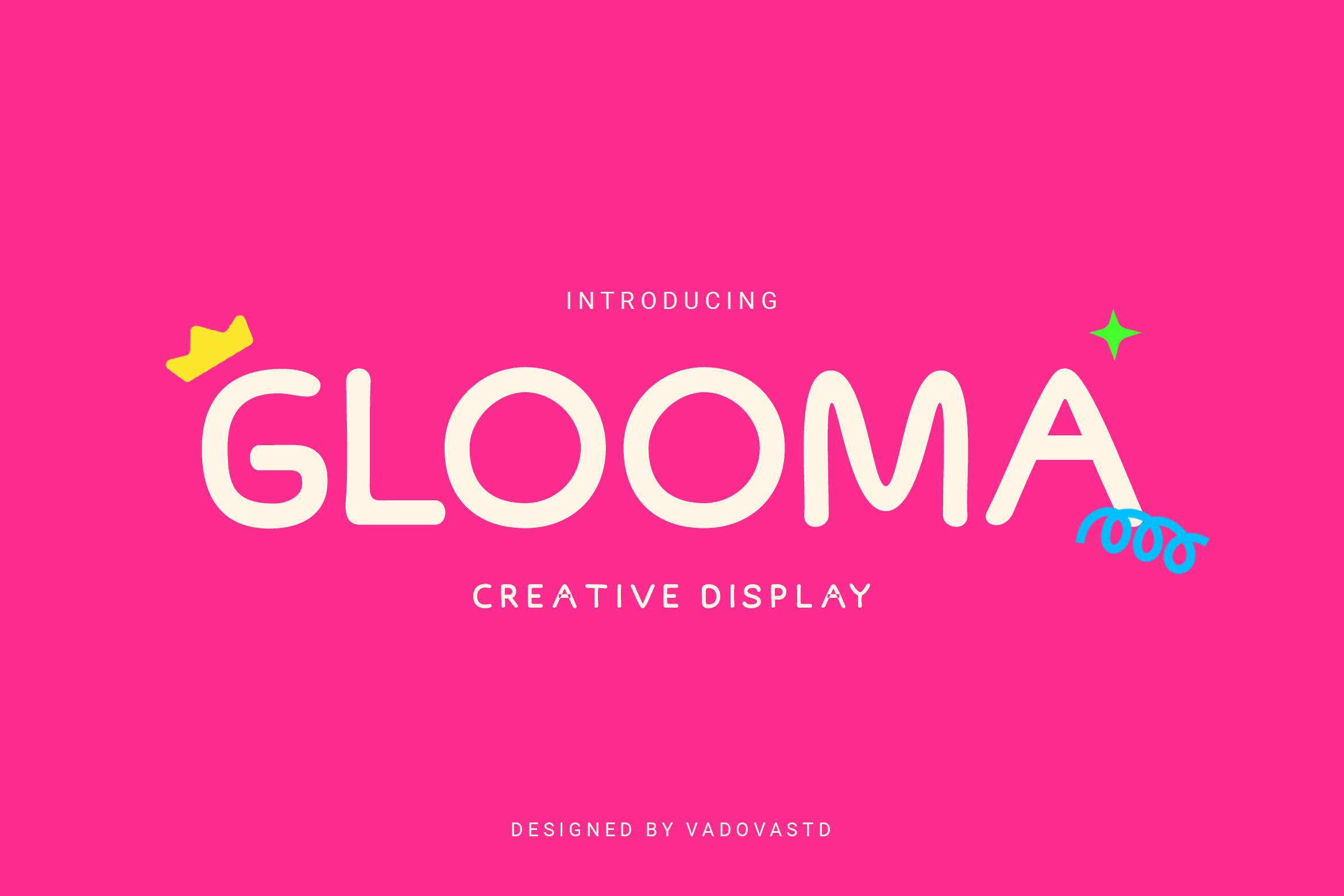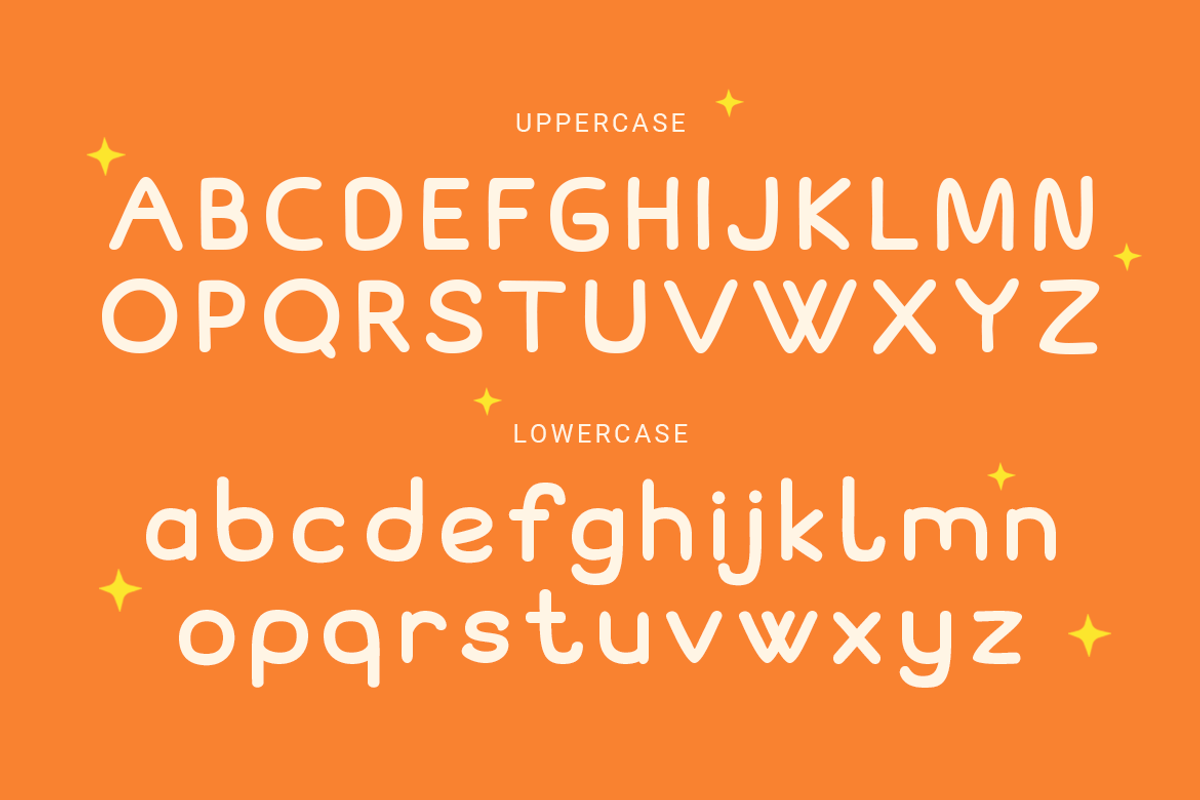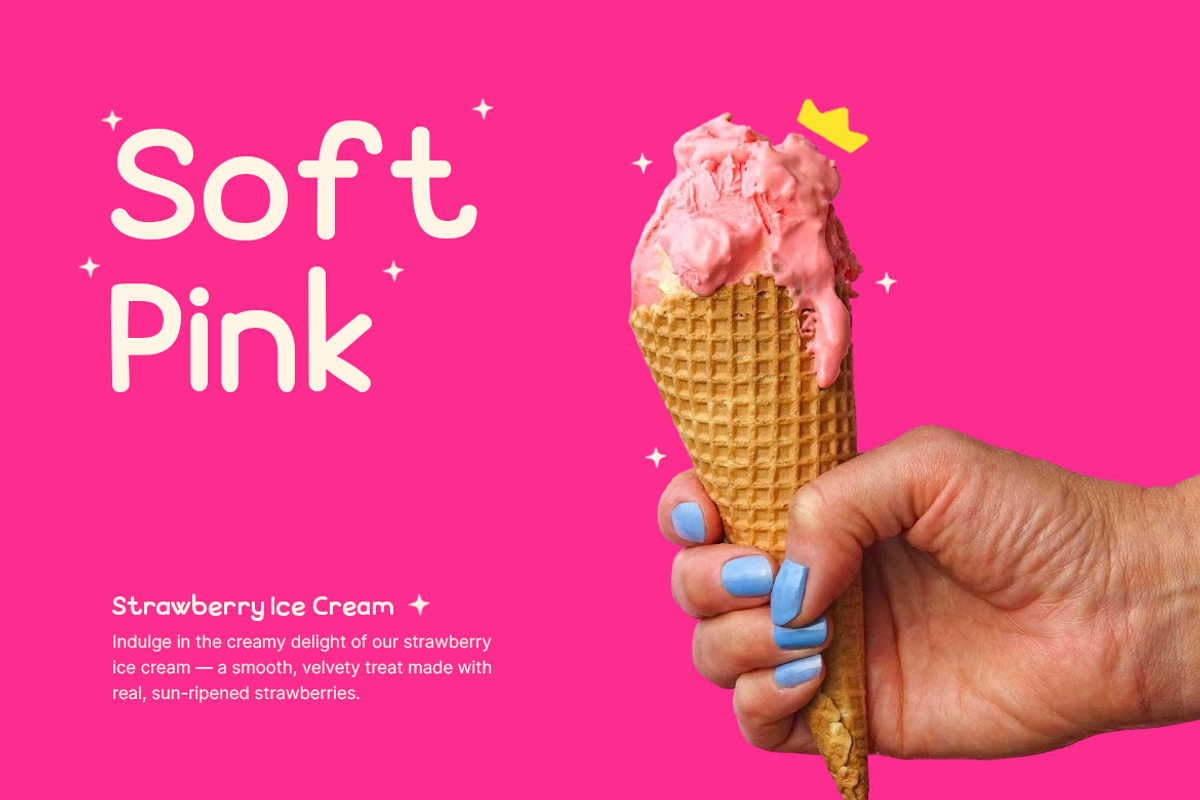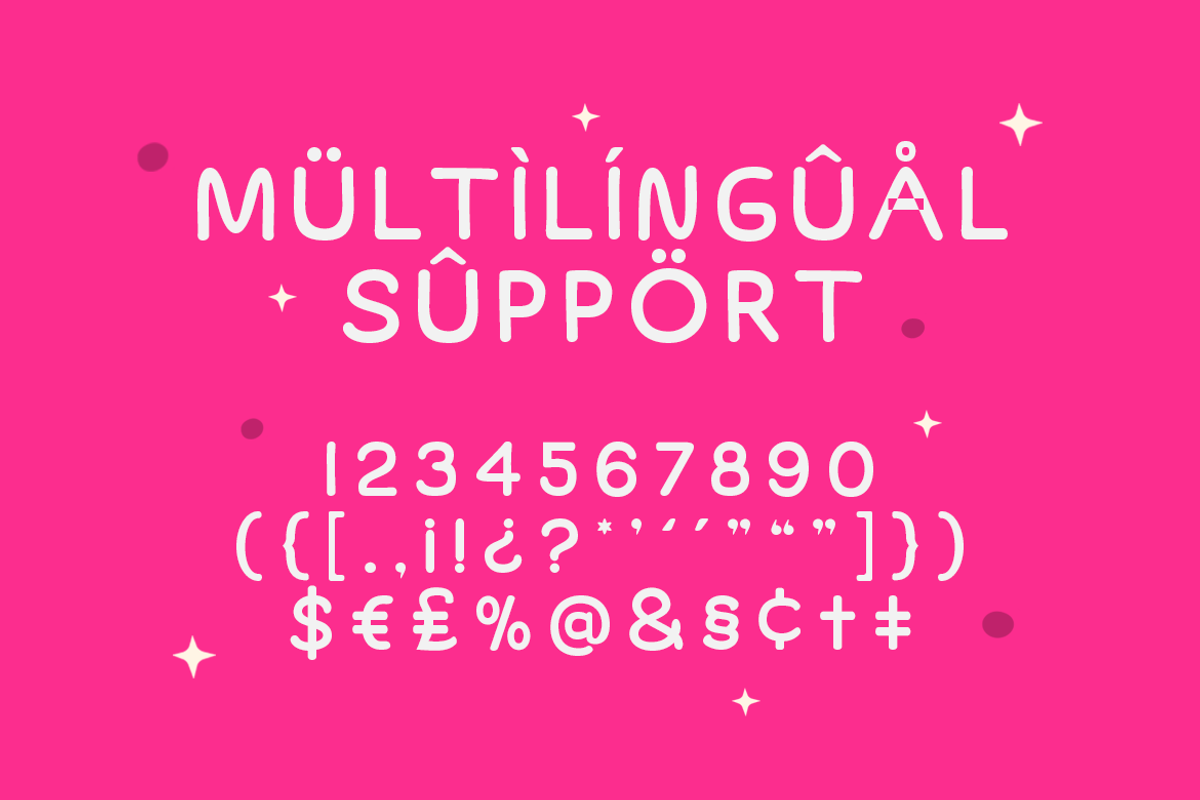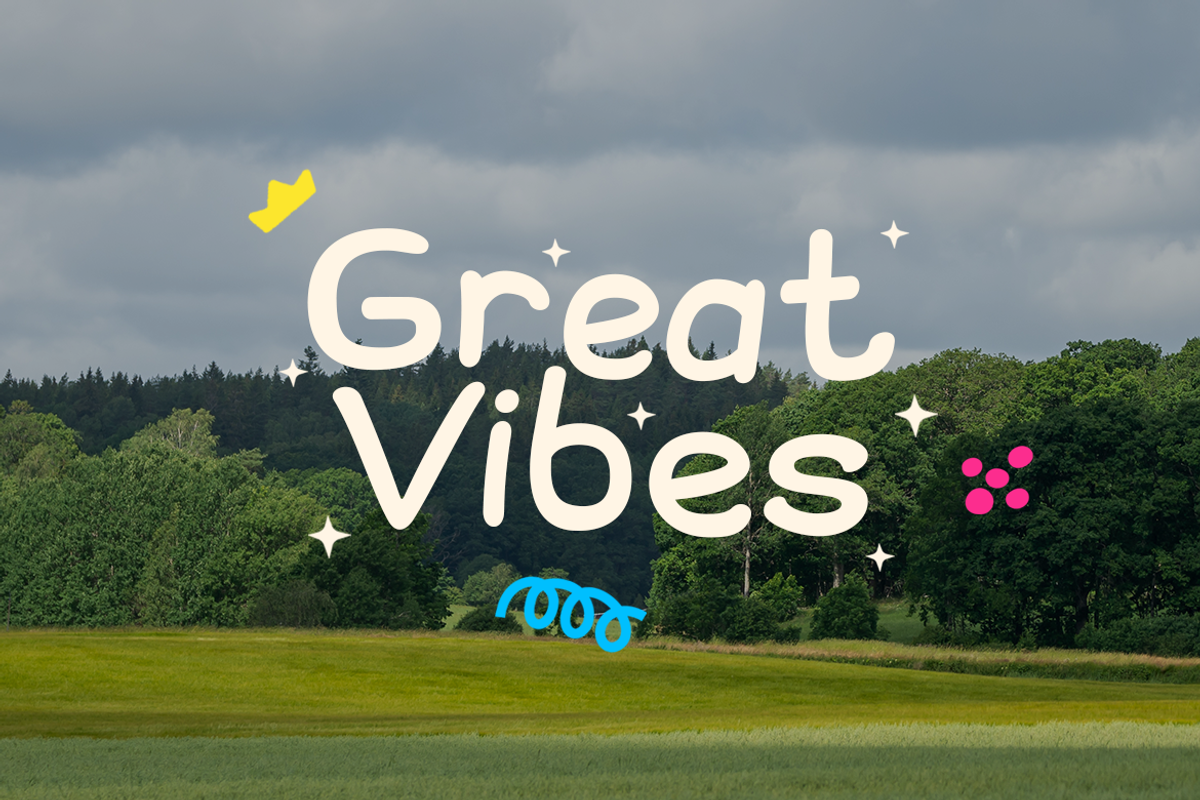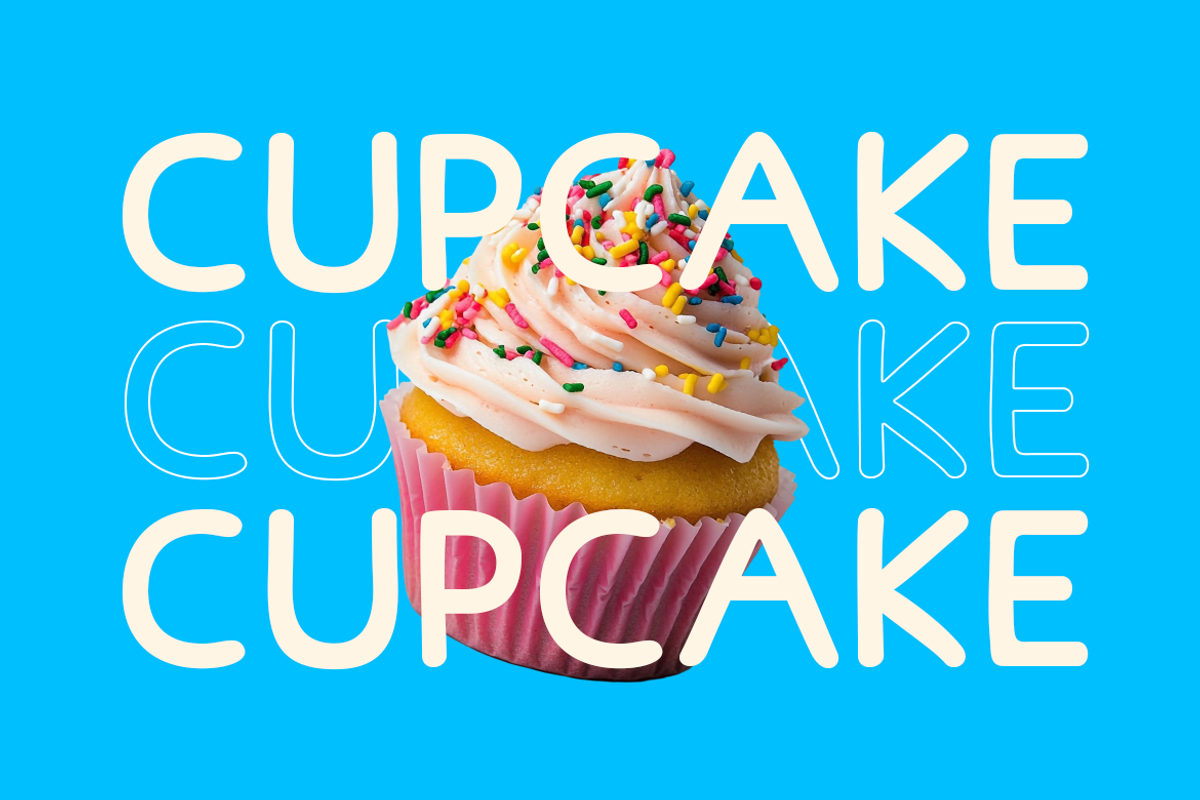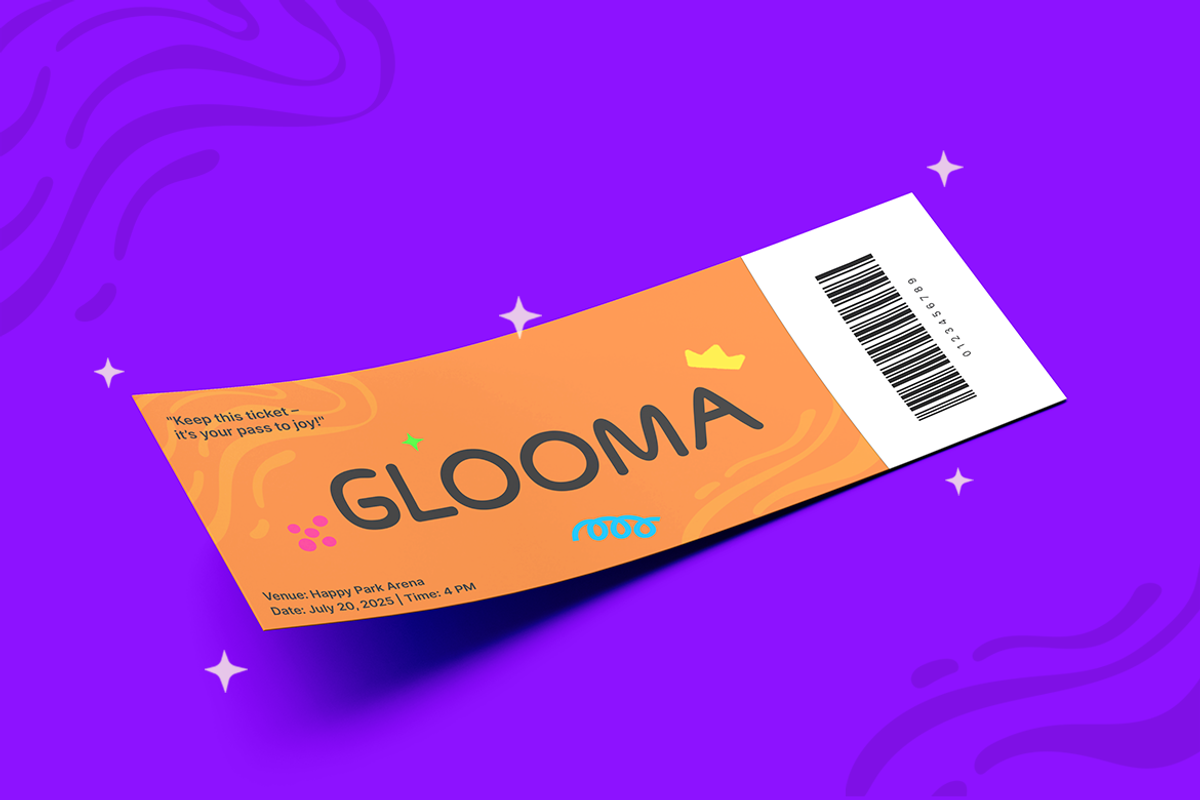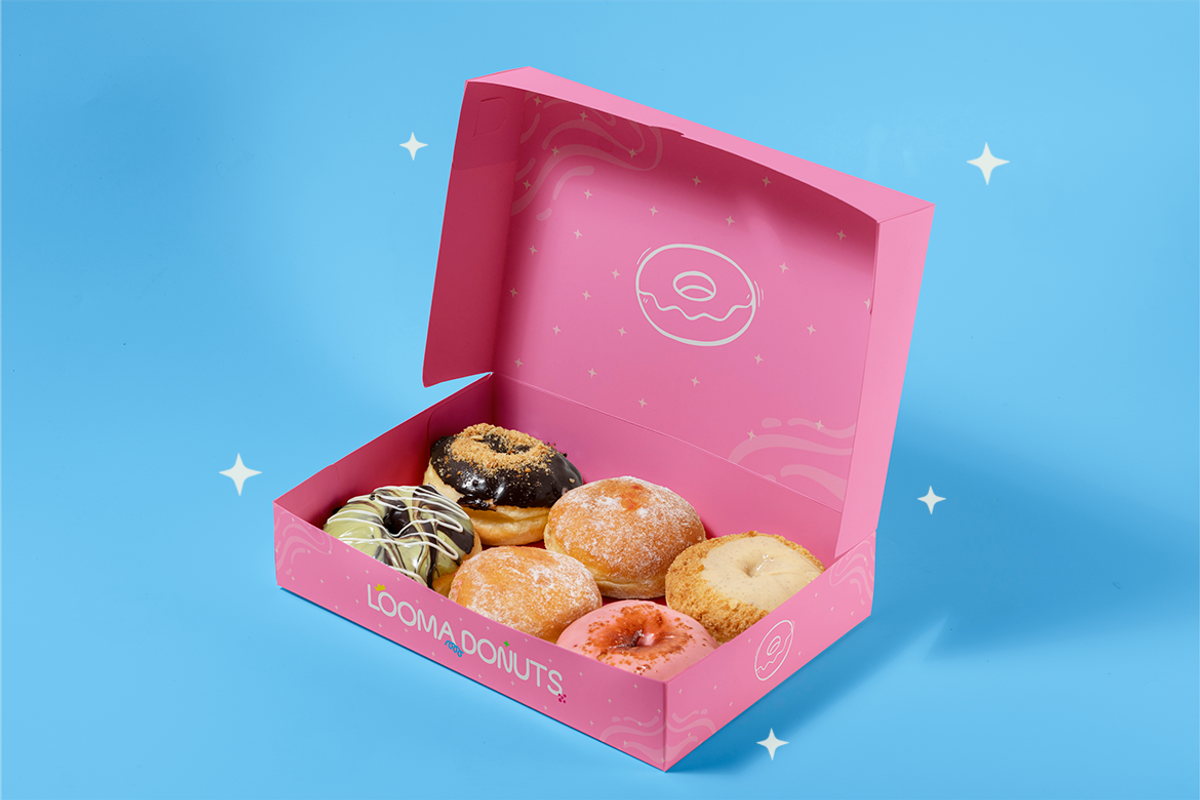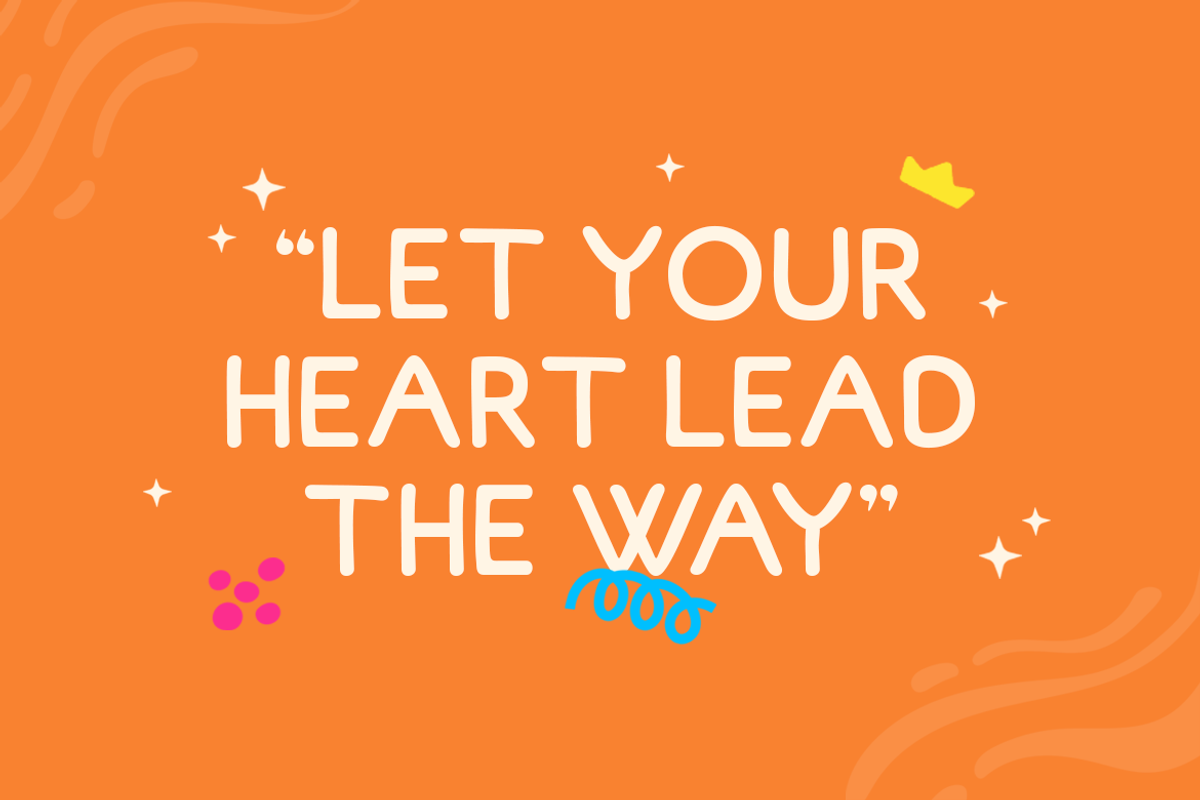
Glooma – Playful Display Font
Glooma is a playful display font that radiates fun, energy, and positivity. With its rounded letterforms and bold, friendly shapes, this typeface instantly brings a cheerful vibe to any design. Created for designers who want to spark joy, Glooma makes every word look brighter and more engaging.
This font captures the spirit of creativity and youth—perfect for playful branding, children’s books, toy packaging, and social media content. Whether used in headlines, logos, or digital posts, Glooma ensures your design feels fun, approachable, and full of life.
Why Designers Love It:
Playful rounded shapes with a cheerful personality.
Bold yet simple structure for high readability.
Perfect for kids-friendly projects and fun branding.
Creates joyful energy across print and digital platforms.
Uppercase & Lowercase Letters
Alternates & Ligatures for creative flexibility
Best Use Cases:
Kids Branding & Toy Packaging
Children’s Book Titles & Story Covers
Playful Logo & Creative Branding
Social Media Graphics & Fun Posters
Party Invitations & Greeting Cards
Merchandise & Lifestyle Products